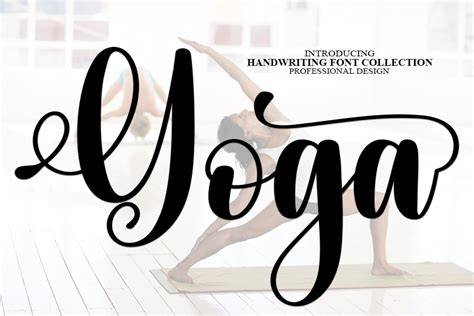
Introducing The Newest Trend In Yoga: Yoga Fonts
It’s 2023, and the world of yoga is changing yet again. Just when you thought you’d heard it all, now there’s something new on the scene: yoga fonts. But what are they, and why are they so important? Read on to find out more.
What are Yoga Fonts?
Yoga fonts are a type of digital typeface that are specifically designed for use during yoga poses. The designs range from minimalist to ornate, and can be used to emphasize the alignment of the body during the practice. They can also be used as a visual cue to help the practitioner stay in the correct postures.
Benefits of Using Yoga Fonts
Yoga fonts are a great way to help yogis stay focused and find alignment during their practice. By having a visual cue for each pose, the practitioner can easily identify which pose they are supposed to be in and how to align their body. This can help them stay in the pose longer and with greater accuracy.
Yoga fonts can also be used as a form of mindfulness during the practice. By focusing on the shapes and lines of the font, the yogi can stay more present and connected to their body. This can help to deepen their practice and make it more effective.
How to Choose the Right Yoga Font
When choosing a yoga font, it’s important to consider a few key factors. First, think about the style of font you would like to use. Do you prefer minimalist designs, or more ornate ones? Do you want a font that is easily readable or one that is more abstract?
It’s also important to consider the size of the font. Generally speaking, the larger the font, the easier it will be to read. However, if your font is too big, it may become distracting. It’s important to find a balance between size and readability.
Where to Find Yoga Fonts
If you’re interested in trying out yoga fonts, there are a few different places you can look. First, you can check out the websites of popular yoga studios. Many of them have their own yoga fonts that they use in their classes.
You can also find yoga fonts online. There are various websites and apps dedicated to providing yoga fonts for practitioners. These sites usually have a wide range of fonts to choose from, so you’re sure to find one that suits your style.
Yoga fonts are a great way to bring a new element to your practice. They can help you stay focused, find alignment, and deepen your mindfulness. And with so many different fonts to choose from, you’re sure to find the perfect one for you. So why not give yoga fonts a try? You never know what new discoveries you might make.